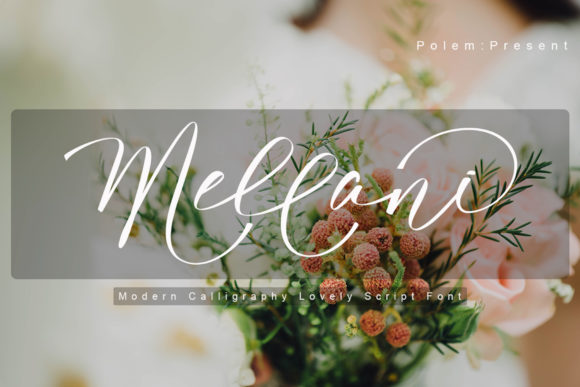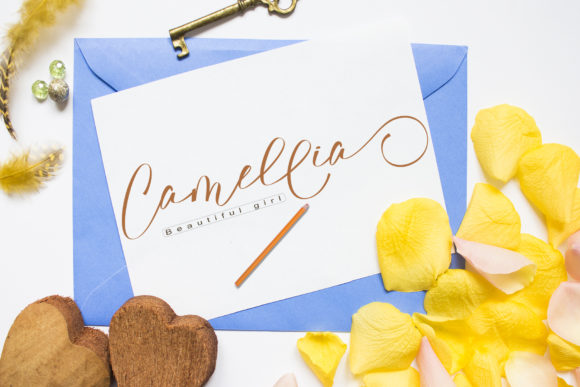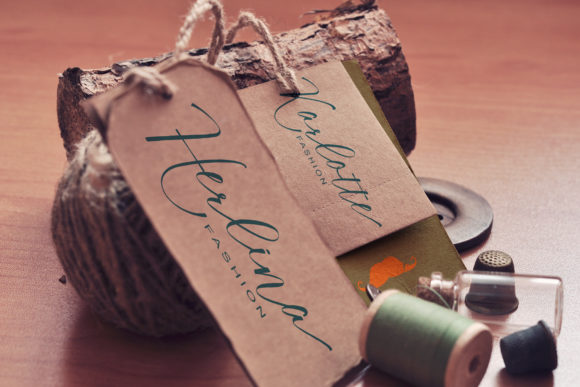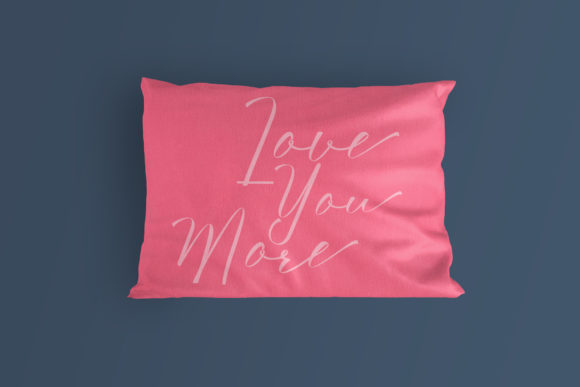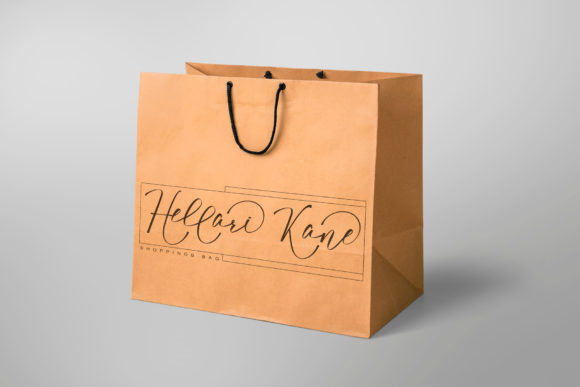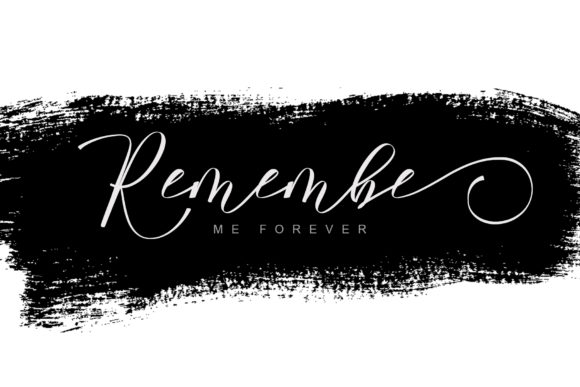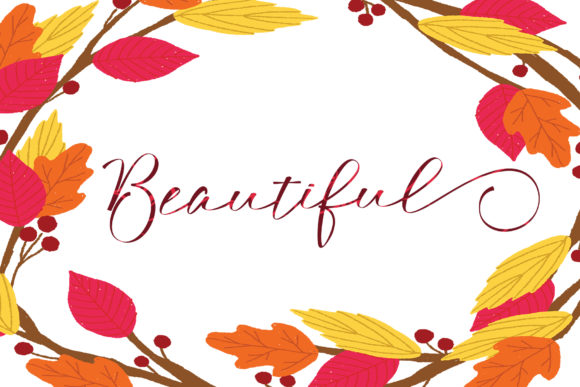
Mellani Font
About Mellani Font
Mellani is a purely handwritten font perfect for invitations, signatures, blogs, social media, business cards, product brands and much more.
Give your next projects a personal touch with this brand new font.